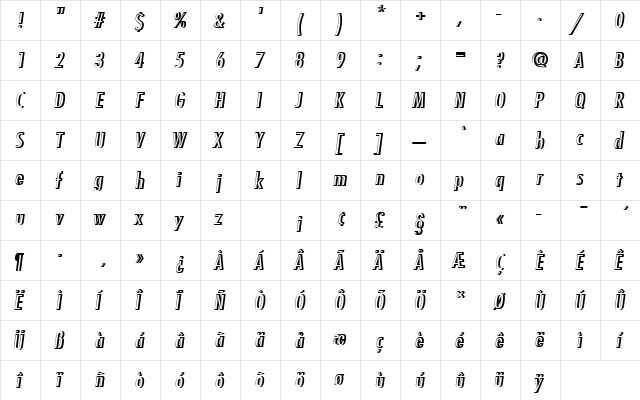
FuturaTMedConOblRe1 Regular Font Preview
FuturaTMedConOblRe1 Regular
Design Context for FuturaTMedConOblRe1 Typeface
FuturaTMedConOblRe1 channels digital-age aesthetics through its sharp, structured letterforms — ideal for brands that want to signal innovation.
Pro Tip: Try FuturaTMedConOblRe1 with generous letter-spacing in UI labels and navigation — the geometric forms benefit from room to breathe.